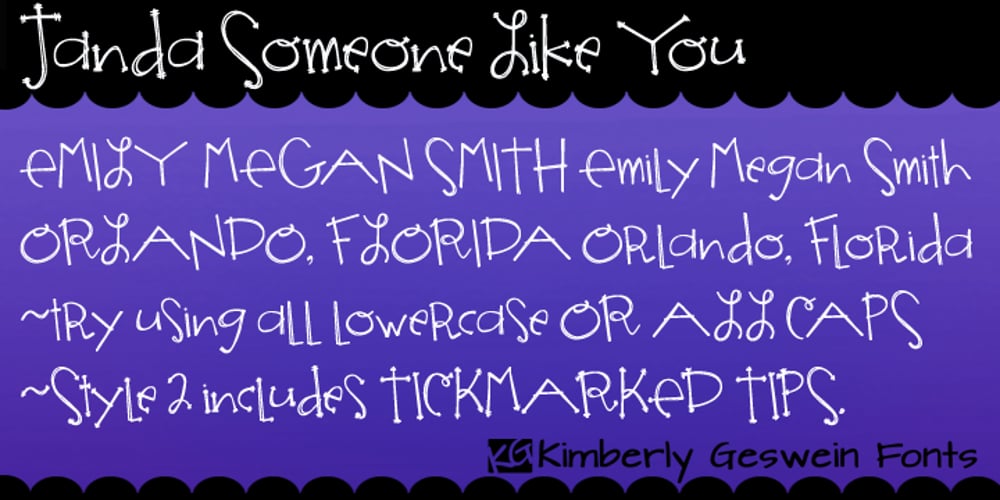
Janda Someone Like You
Janda Someone Like You font
Janda Someone Like You Font Family was designed by Kimberly Geswein and published by Kimberly Geswein. Janda Someone Like You contains 2 styles and family package options. These playful letters are perfect for any whimsical designs. There are two versions- one with tickmarked tips and one without. Looks great in all caps as well as mixed-case.